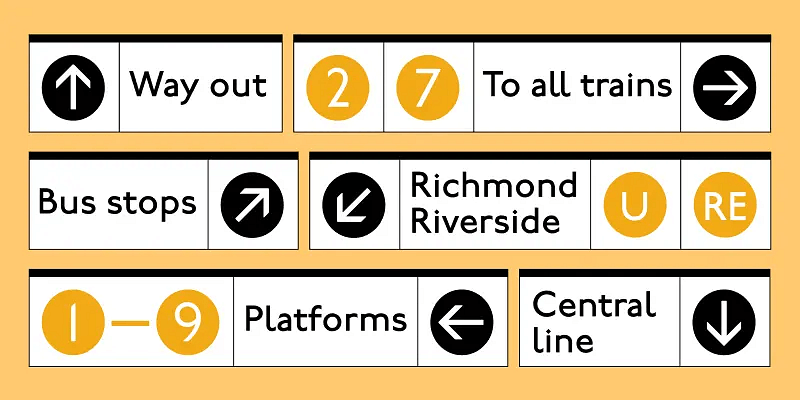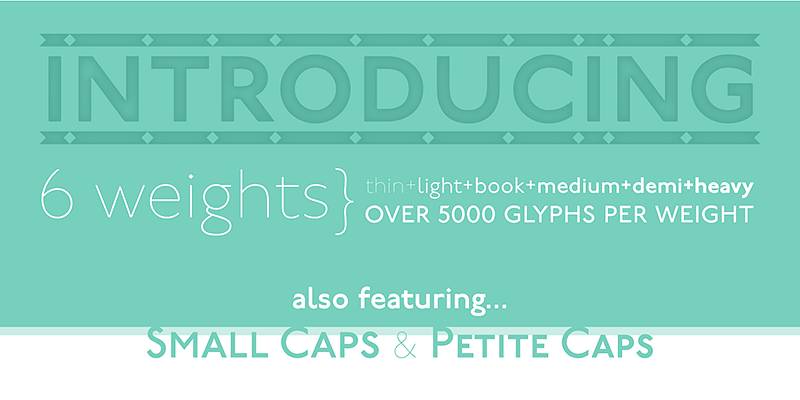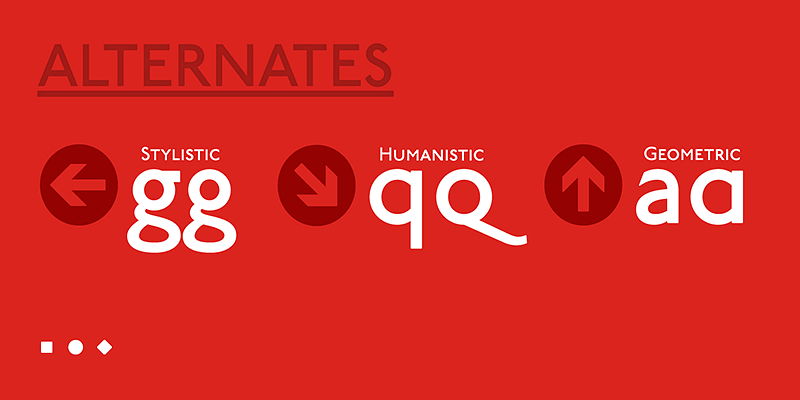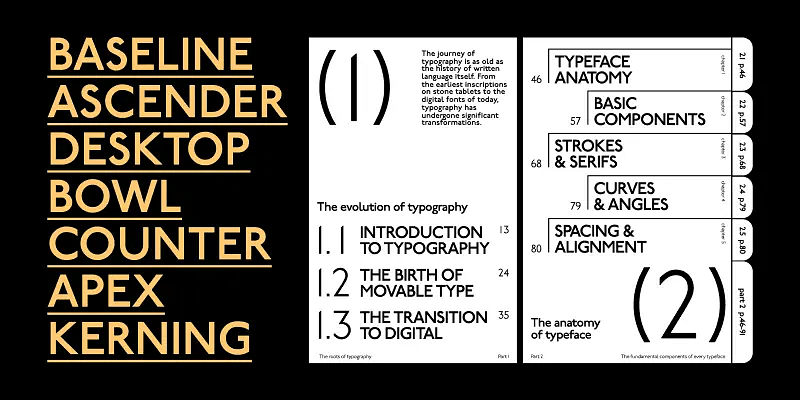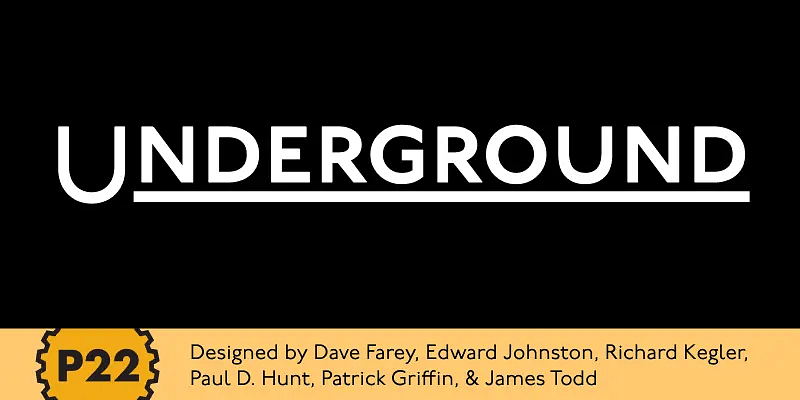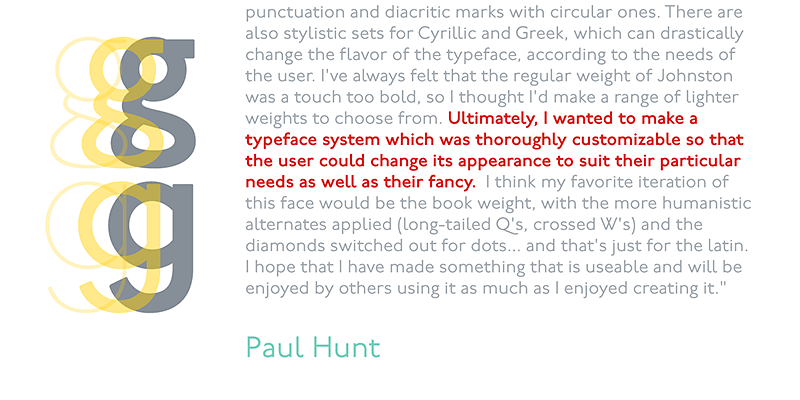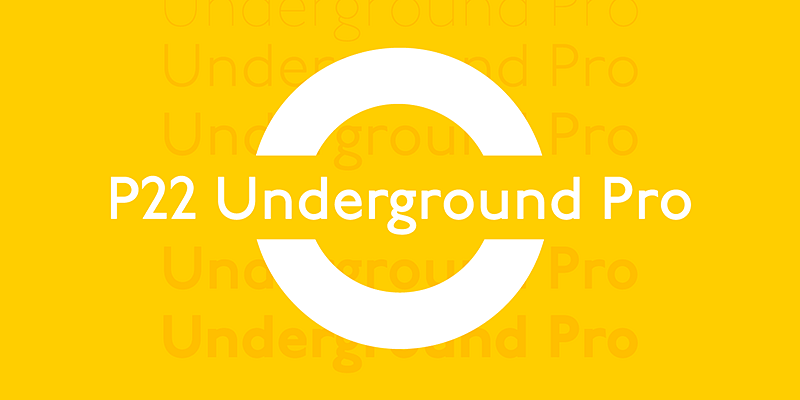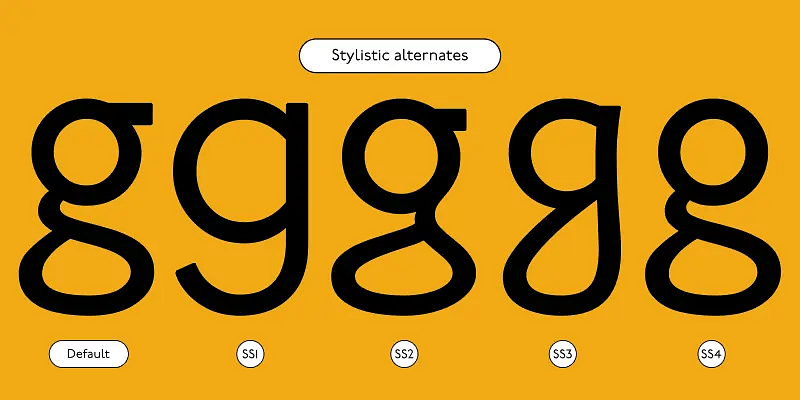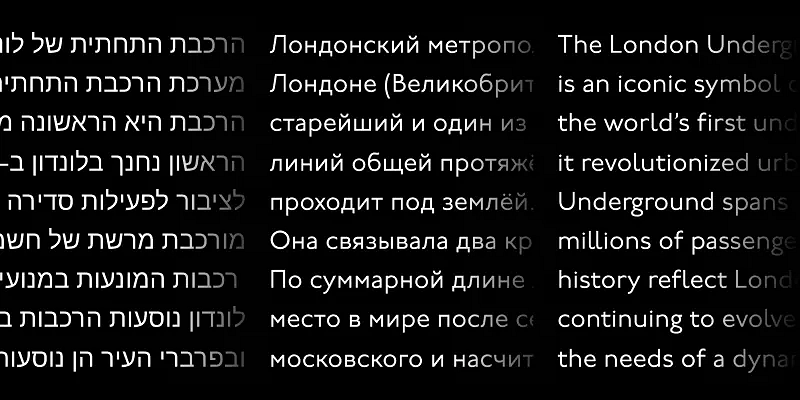
P22 Underground Pro is based on the Edward Johnston’s Sans design of 1913 commissioned by The Underground Group to be used as their corporate identity font, and the London Underground signage system.